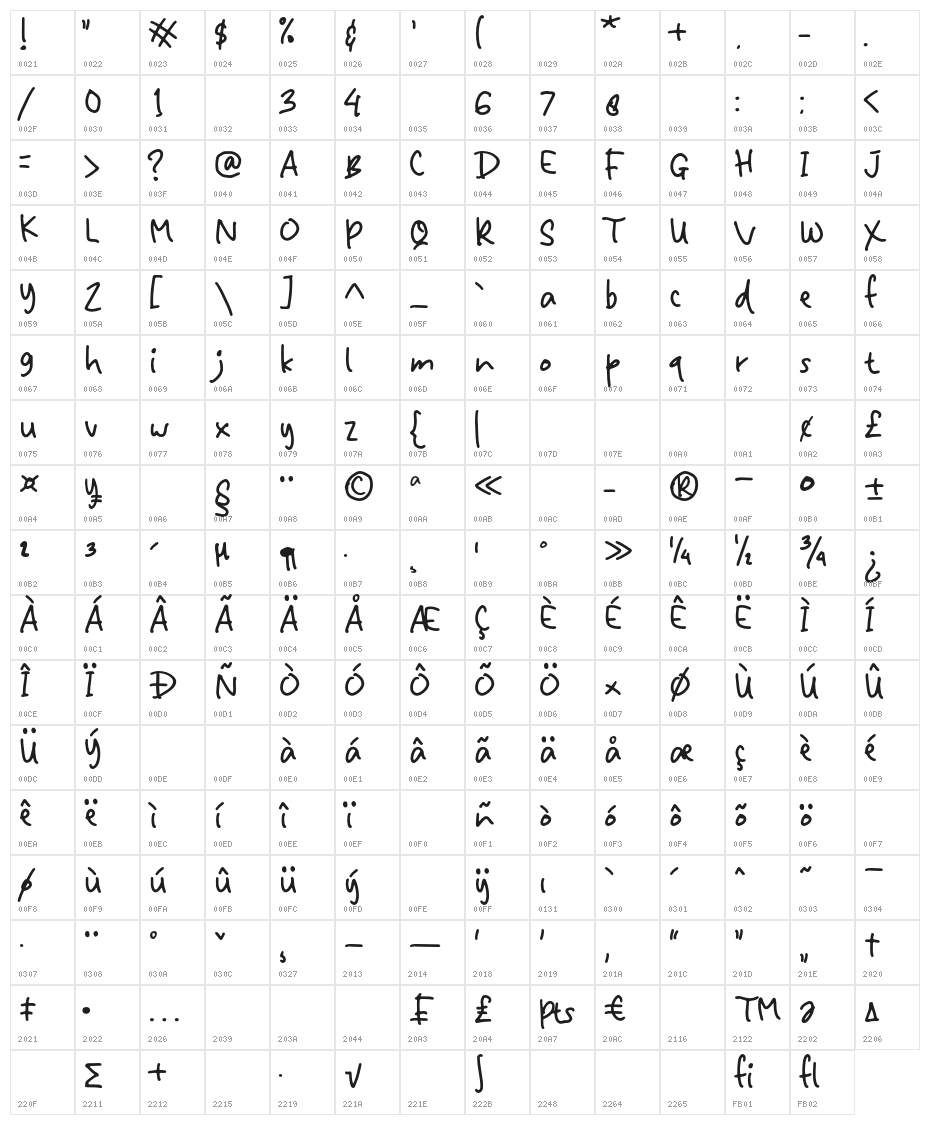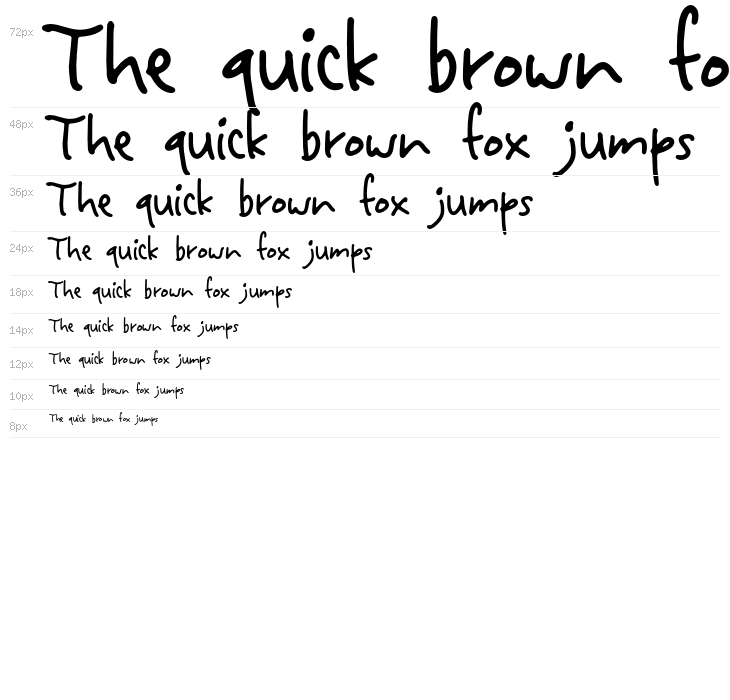
Secondhand Font
Secondhand Description
A playful, handwritten font with irregular strokes and a casual appearance.
| Use Case | Informal text, personal projects. |
| Proposed Projects | Greeting cards, informal invitations, personal notes. |